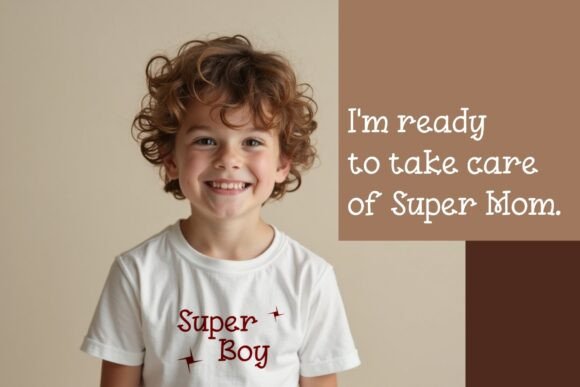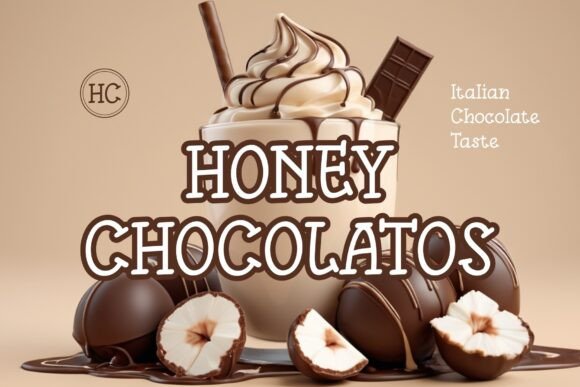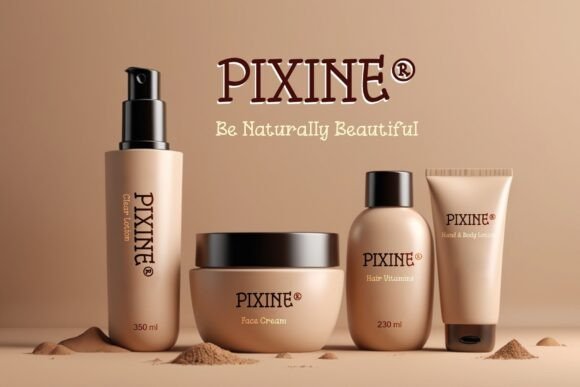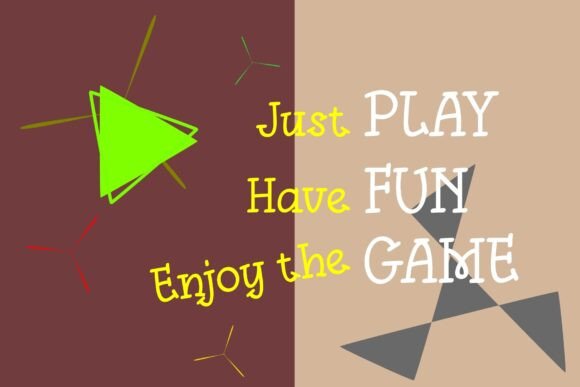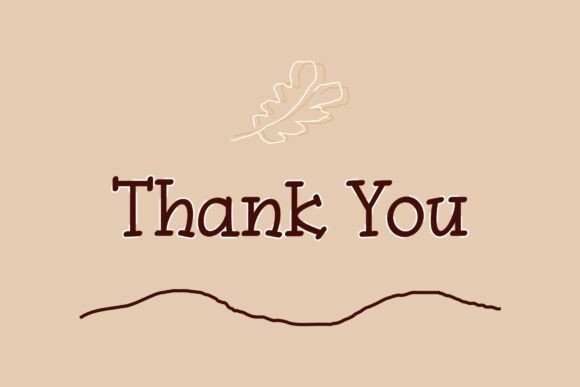
BTS Bunny Font: The Perfect Addition to Your Design Projects
Are you a designer or crafter looking for a font that can add a touch of playfulness and whimsy to your projects? Look no further than the BTS Bunny Font. This simple, easy-to-read, and playful handwritten font is perfect for a variety of design projects with cheerful, natural, classic, vibrant, and familiar themes.
What is BTS Bunny Font?
BTS Bunny Font is a unique and charming font that is designed to bring a sense of fun and playfulness to your designs. With its handwritten style, this font is perfect for creating eye-catching headings, titles, and text that will capture the attention of your audience. The font is highly legible, making it suitable for use in a wide range of design projects, from children’s books and educational materials to branding and advertising.
Key Features of BTS Bunny Font
- Playful and Whimsical: The BTS Bunny Font has a playful and whimsical feel that makes it perfect for designs that require a touch of fun and personality.
- Easy to Read: The font is highly legible, making it easy to read and understand, even for younger audiences.
- Handwritten Style: The font has a unique handwritten style that gives it a personal and authentic feel.
- Versatile: The BTS Bunny Font is versatile and can be used in a wide range of design projects, from digital to print.
Uses of BTS Bunny Font
The BTS Bunny Font is perfect for a variety of design projects, including:
- Children’s Books and Educational Materials: The font’s playful and whimsical style makes it perfect for children’s books, educational materials, and other projects aimed at young audiences.
- Branding and Advertising: The font’s unique and charming style makes it perfect for branding and advertising projects that require a touch of personality and whimsy.
- Stationery and Invitations: The font’s handwritten style makes it perfect for stationery and invitation designs that require a personal and authentic feel.
- Digital Designs: The font is perfect for digital designs, including social media graphics, blog posts, and website headers.
Why Choose BTS Bunny Font?
There are many reasons why you should choose the BTS Bunny Font for your design projects. Here are a few:
- Unique and Charming: The font has a unique and charming style that will set your designs apart from the rest.
- Highly Legible: The font is highly legible, making it easy to read and understand.
- Versatile: The font is versatile and can be used in a wide range of design projects.
Tips for Using BTS Bunny Font
Here are a few tips for using the BTS Bunny Font in your design projects:
- Use it for Headings and Titles: The font is perfect for headings and titles, where you want to make a bold statement.
- Pair it with Other Fonts: The font can be paired with other fonts to create a unique and interesting contrast.
- Experiment with Colors: The font looks great in a variety of colors, so don’t be afraid to experiment and find the perfect color for your design.
The BTS Bunny Font is a unique and charming font that is perfect for designers and crafters looking to add a touch of playfulness and whimsy to their projects. With its handwritten style, high legibility, and versatility, this font is perfect for a wide range of design projects. Whether you’re creating children’s books, branding and advertising materials, or digital designs, the BTS Bunny Font is a great choice.